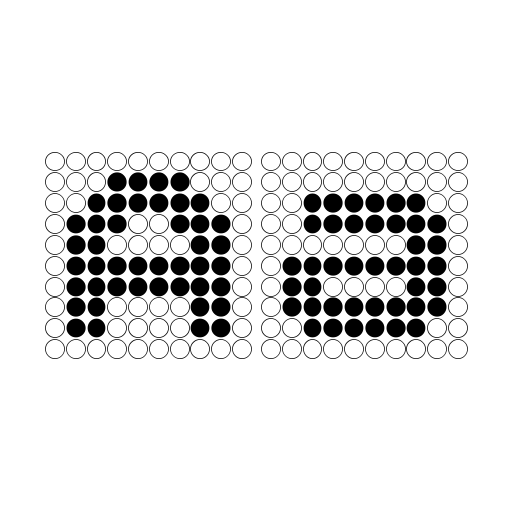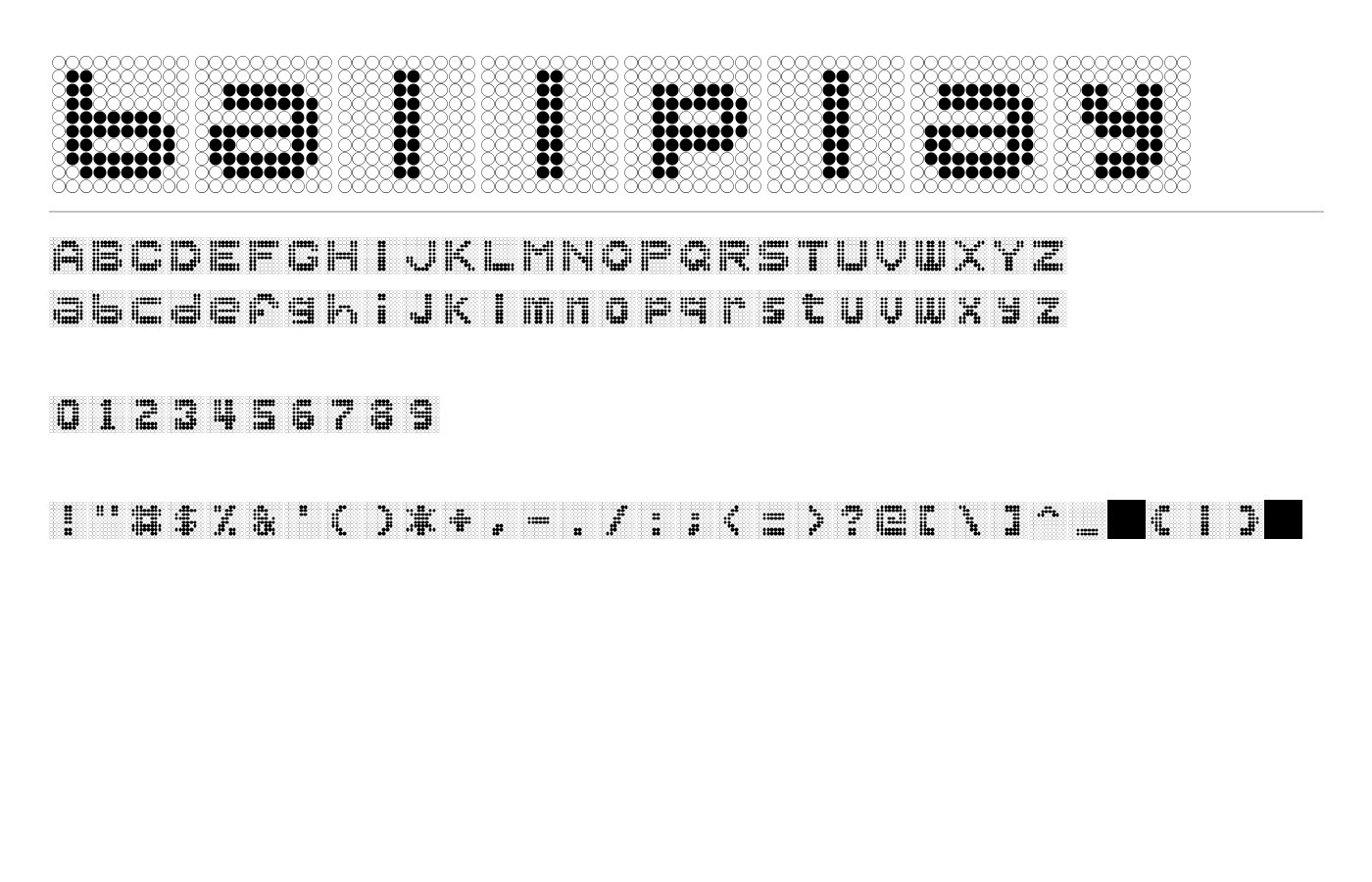
Ballplay is a playful, pixel-inspired sans serif font characterized by its grid-based construction and rounded dot elements, giving it a retro, digital charm. With its consistent weight, monospaced feel, and geometric shapes, it suits creative projects that want to evoke a nostalgic or techy vibe, making it ideal for gaming, digital art, or vintage-style branding. Its distinctive dot matrix style ensures it stands out in headlines, logos, and display uses where a quirky, modern pixel aesthetic is desired.
ballplay Font